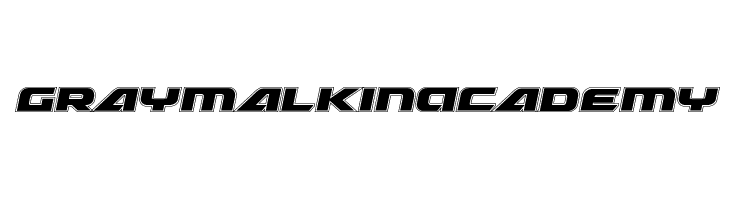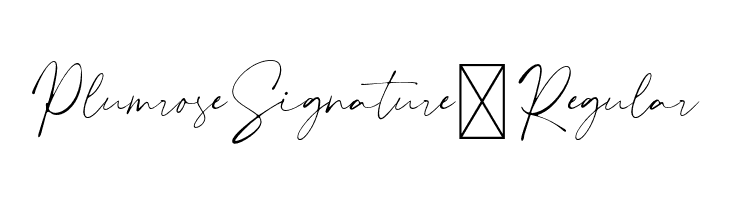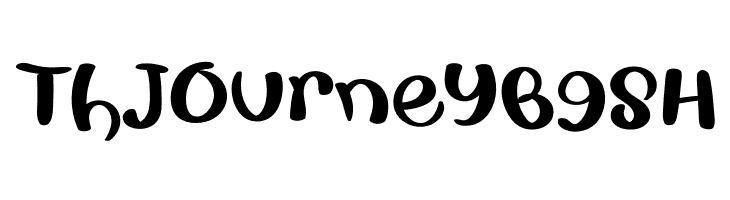
A bold, decorative font with nature-inspired ornamental elements.
A graceful and elegant script font with flowing, cursive letterforms and ornate flourishes.
A bold, geometric font with a retro-futuristic style.
A futuristic, gradient-lined font with a bold, geometric style.
A bold, flowing script font with elegant, cursive letters and high contrast.
A modern, geometric outline font with a sleek and elongated design.
A dynamic, cursive script font with elegant, flowing strokes.
A dynamic and fluid script font with elegant, flowing letterforms.
A playful, zigzag-patterned font with dynamic, hand-drawn strokes.
A modern, handwritten font with elegant, thin strokes and a dynamic slant.